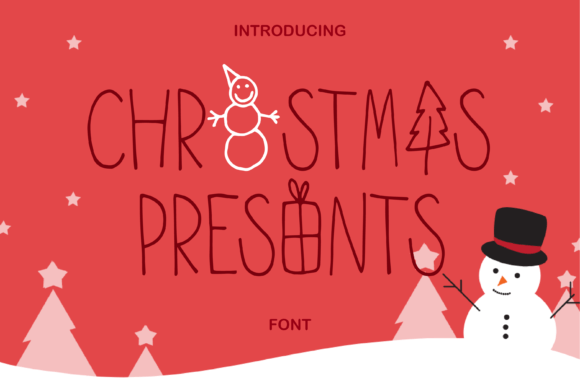
Unwrap the joy of Christmas with the enchanting Christmas Present font, an exquisitely crafted display font that captures the spirit of the holiday season. Dive into a realm of festive typography, where each letter dances with merry cheer, ready to transform your creative projects into captivating masterpieces.
With Christmas Present, the possibilities are endless. Design eye-catching Christmas cards that spread warmth and merriment, create custom gift tags that add a personal touch to your presents, or craft stunning social media posts that evoke the magic of Christmas. The font's playful curves and jovial spirit will infuse your designs with an undeniable charm, leaving a lasting impression on all who behold them.
Embrace the creative freedom that Christmas Present offers. Its versatility knows no bounds, allowing you to effortlessly elevate any project with a touch of holiday magic. Whether you're a seasoned designer or just starting your creative journey, Christmas Present will be your guiding star, illuminating your path with its enchanting allure.
Let your imagination soar as you explore the boundless possibilities of Christmas Present. From whimsical invitations to festive posters, the font's jolly nature will add a dash of cheer to any occasion. Its playful personality is a perfect match for children's books, bringing stories to life with a captivating charm that will spark their imaginations.
Experience the magic of Christmas Present today and unlock a world of creative possibilities. Let the spirit of the season flow through your designs, creating captivating visuals that spread joy and ignite imaginations. With Christmas Present, the gift of creativity awaits, ready to transform your projects into extraordinary works of art.